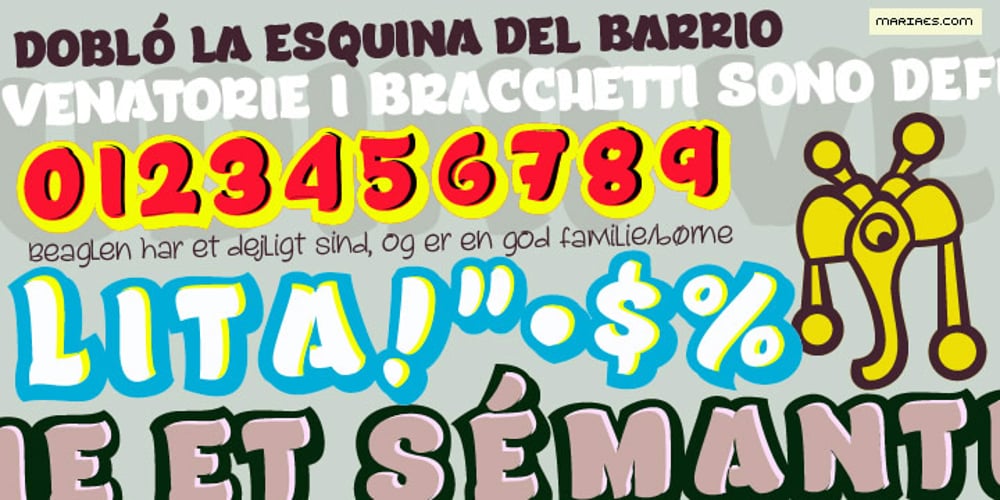
Lita Font Family was designed by Carlos Fabián Camargo Guerrero, María Angélica Estrada Cano and published by Mariaes. Lita contains 3 styles and family package options. Lita was inspired by Maria Angelica Estrada’s manuscript lettering. Its sweet and feminine style improves when you put on top the A,B and C files, saving time and work when changing colors, changing look or changing the volume it needs.